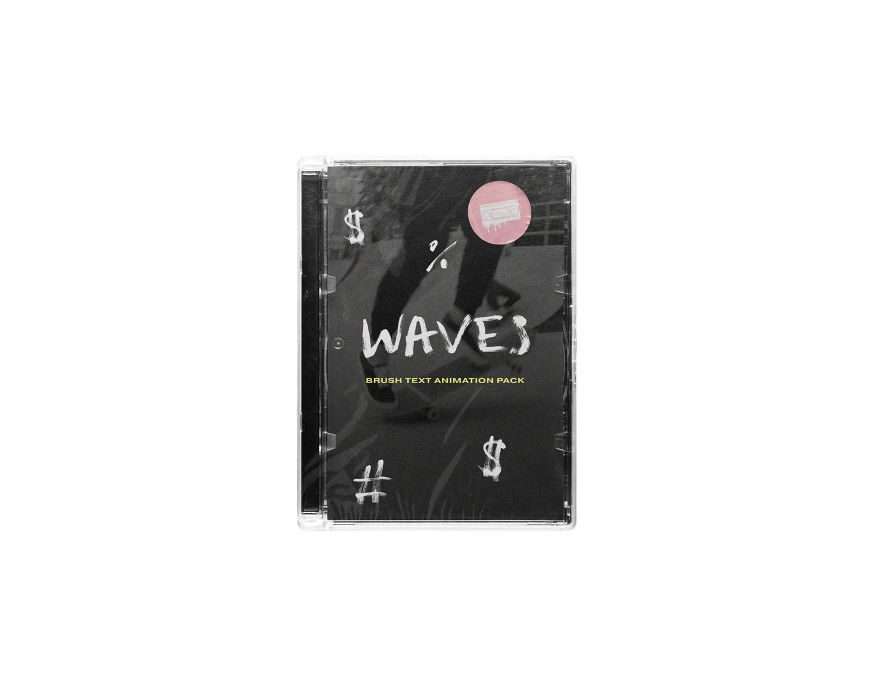
Video Milkshake WAVES – BRUSH ANIMATED FONT PACK – Free Download The raw look of brushed text created from authentic scans – this Brush Text Animation Pack was scanned frame by frame to capture every groove of ink – while matching perfectly to a digital workflow.